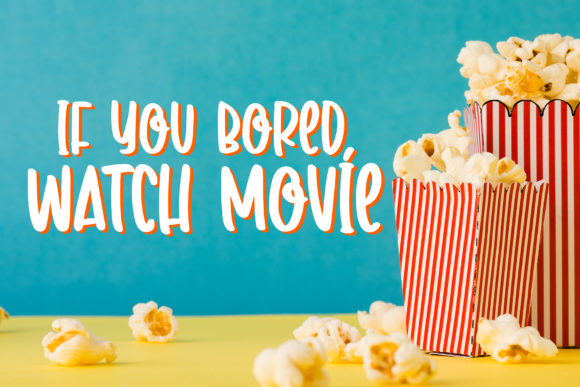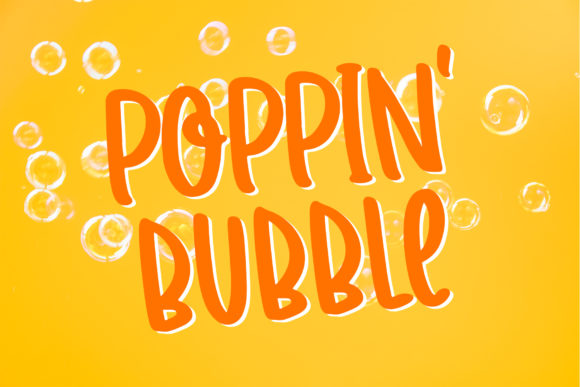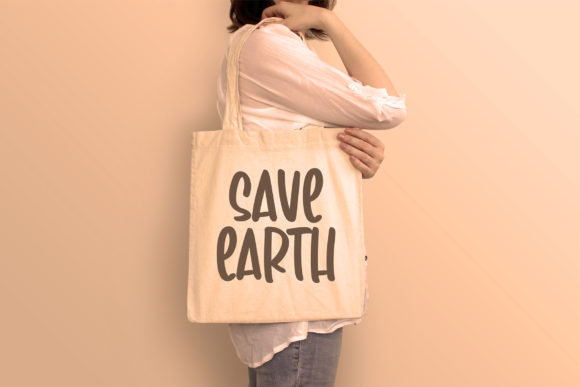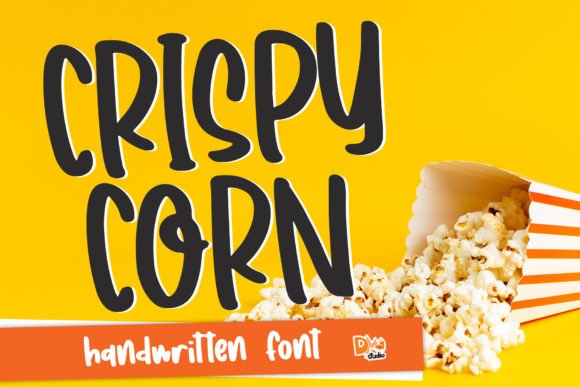
Introduction to Crispy Corn Font
Crispy Corn is a cute and quirky handwritten font.
It will add an incredibly joyful touch to your designs Add this beautiful font to each of your creative ideas and notice how it makes them stand out.
Crispy Corn Font offers exceptional quality and versatility, making it a valuable addition to your design toolkit. Whether you’re creating for personal projects or commercial use, Crispy Corn Font delivers professional results.